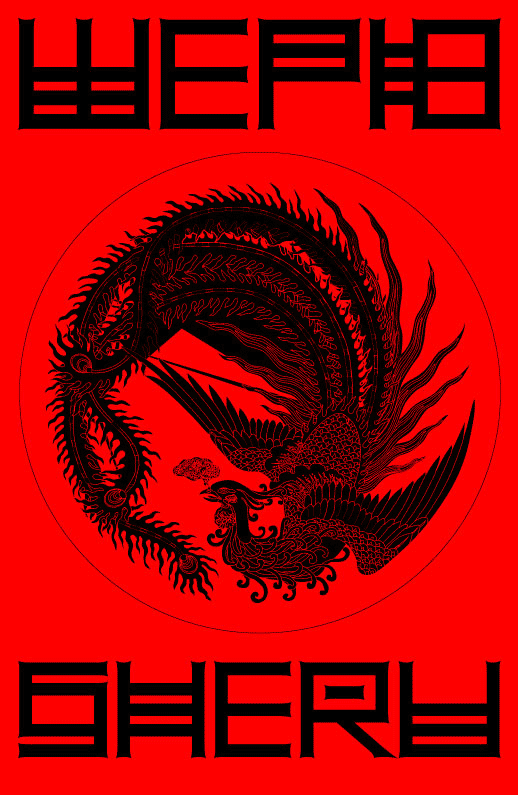
Preview and download Sheru Pro Font. Created by Aleksander Shevchuk in Foreign look Chinese, Jpn styles with 100% Free license.
2009 Copyright Aleksander Shevchuk. Modern Latin and Cyrillic letters realized in Japanese/Chinese style. Including many European glyphs. This font still is updated. You can see my presentation this: http://www.behance.net/Gallery/SheruPro-Type-(Cyrillic-_amp-European-glyphs)/311908 You can see other my fonts this http://www.behance.net/shevchuk: |